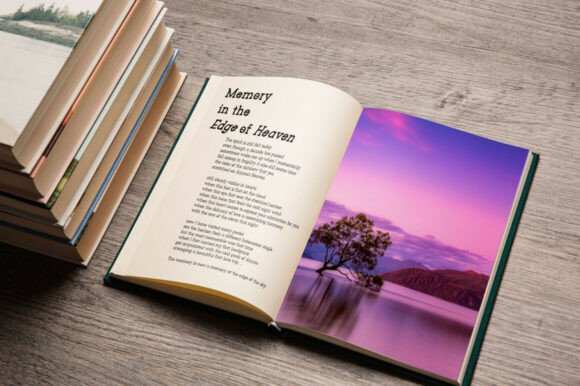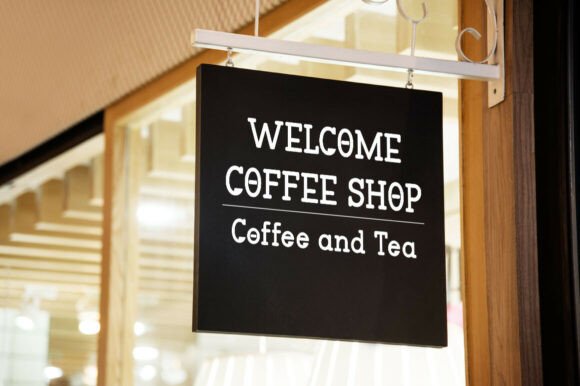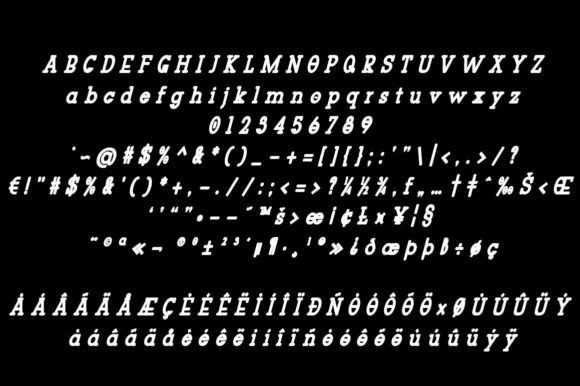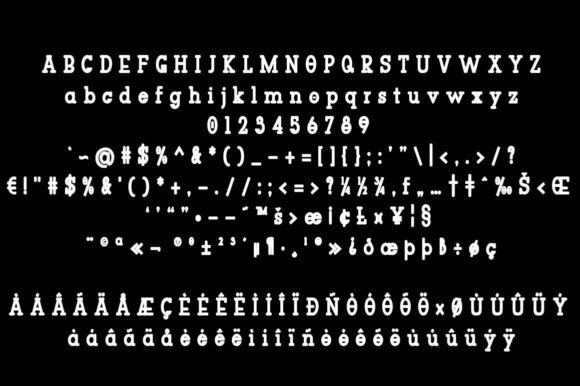
I still remember the frustration of working on a project, hours spent crafting the perfect layout, only to realize that the font I chose wasn’t quite right. The client wanted something that exuded professionalism and modernity, but the font I had selected fell short. It was then that I discovered Beuton Black Font, a game-changer in the world of typography.
Beuton Black Font: A Versatile and Authoritative Slab Serif
Beuton is a versatile and authoritative slab serif font family designed with a blend of sturdy industrial character and modern accessibility. This typeface features thick, blocky serifs and a balanced, monolinear stroke weight that provides exceptional legibility at various scales. Its personality is defined by wide character geometry and unique geometric accents, which create a sense of professional stability and contemporary technical precision.
What I Love About Beuton Black Font
• ✨ Exceptional legibility at various scales, making it perfect for editorial headers, architectural branding, and high-impact digital displays.
• ✅ Thick, blocky serifs that add a touch of industrial chic to any design.
• 💡 Unique geometric accents that create a sense of modernity and technical precision.
• 🌈 Wide character geometry that makes it easy to read and understand.
While Beuton Black Font is an excellent choice for many design projects, there are a few quirks to be aware of:
• 🤔 Some users have reported that the font can be a bit too bold for certain design applications, so it’s essential to use it judiciously.
• ⚠️ The font’s industrial feel may not be suitable for more creative or playful design projects.
The Backstory of Beuton Black Font
Beuton Black Font was designed with the goal of creating a versatile and authoritative slab serif font family that combines industrial character with modern accessibility. The design team drew inspiration from a range of sources, including architectural signage and technical documentation. The result is a font that exudes professional stability and contemporary technical precision.
What is Beuton Black Font? Beuton Black Font is a versatile and authoritative slab serif font family designed with a blend of sturdy industrial character and modern accessibility.
What is Beuton Black Font used for? Beuton Black Font is perfect for editorial headers, architectural branding, corporate identity systems, and high-impact digital displays.